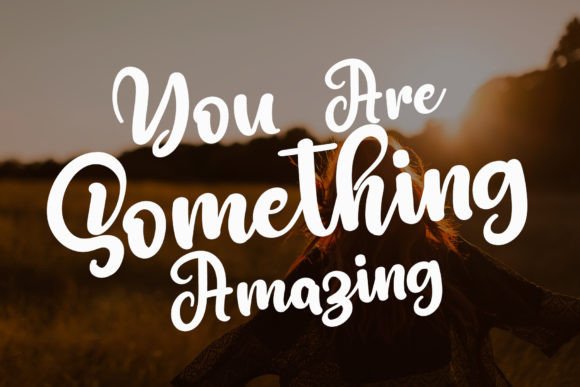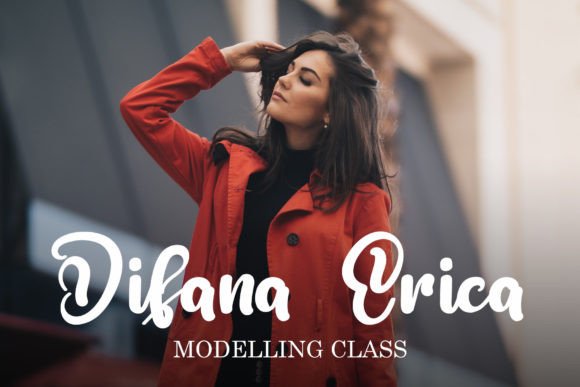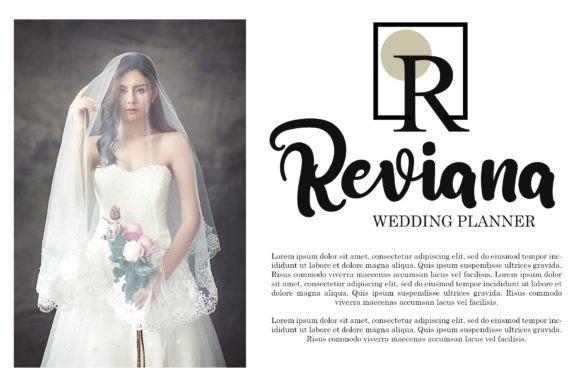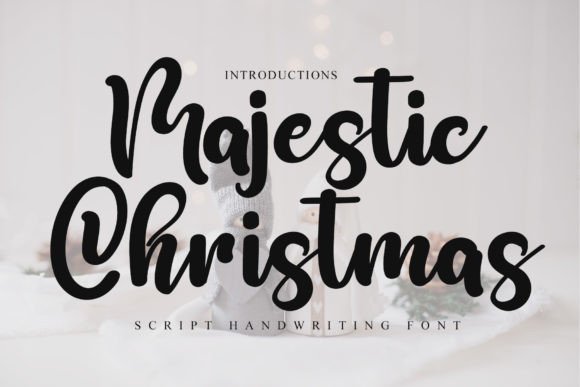
Introduction to Majestic Christmas Font
Majestic Christmas is a sweet and cursive handwritten font.
This gentle font will look gorgeous on a variety of design ideas It will add a joyful and romantic touch to each of your projects.